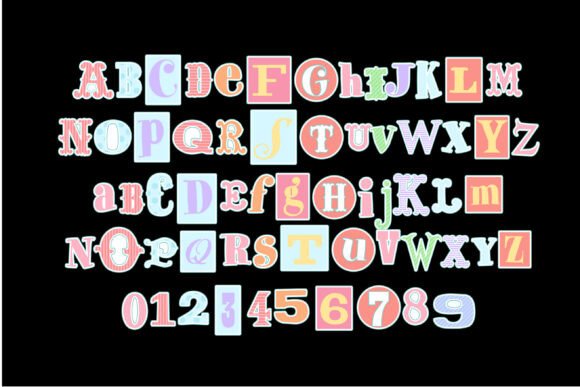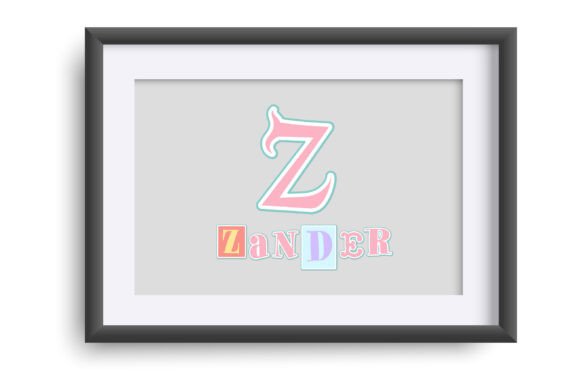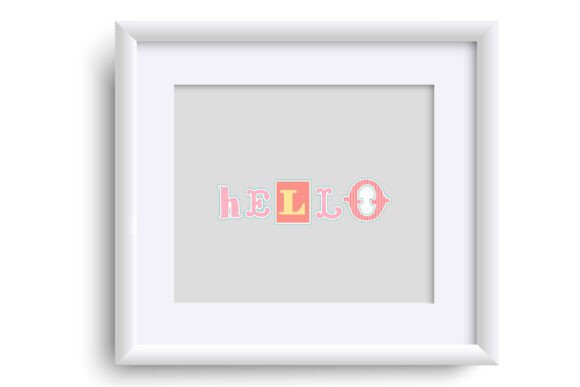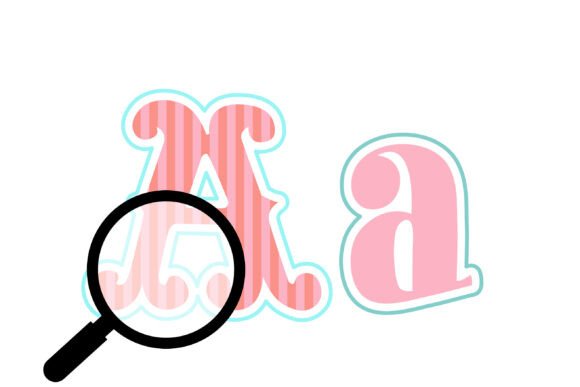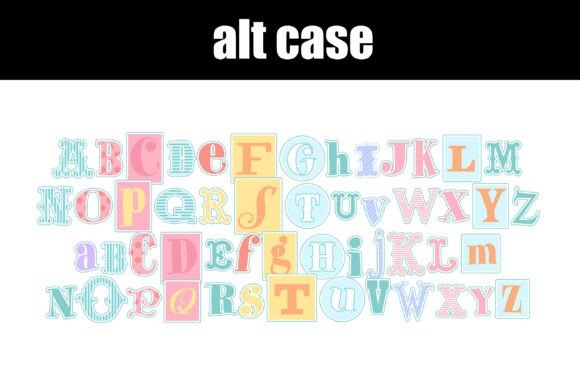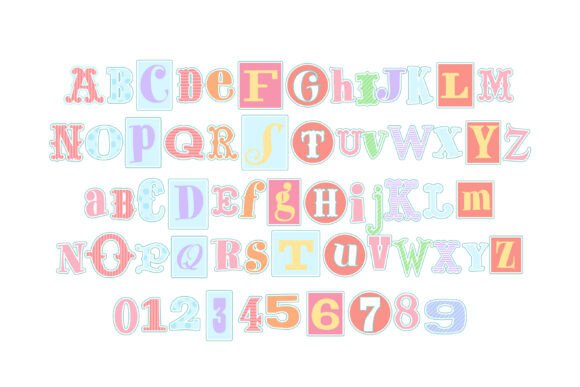
Unlocking the Magic of Kidnap Spring Font
Have you ever found yourself staring at a blank canvas, unsure of how to bring your creative project to life? It’s a familiar feeling, but one that’s about to become a thing of the past with the introduction of the enchanting Kidnap Spring Font.
This stunning full-color font is a treasure trove of design inspiration, featuring a unique blend of font styles in soft, pastel hues. With its alt case offering additional colors for each letter, you’ll have endless possibilities to experiment with. And with the option to access a bunny and chick by typing special glyphs, you’ll be able to add a personal touch to your designs. Whether you’re working on a free download or a high-quality commercial project, Kidnap Spring Font is the perfect resource to elevate your creative work.
Key Features of Kidnap Spring Font
- Perfect for designers looking for a unique and eye-catching font
Honest Review: Kidnap Spring Font
As a designer, I’m always on the lookout for high-quality design resources to elevate my creative projects. Recently, I came across the Kidnap Spring Font, and I must say, it’s been a game-changer for my latest design endeavors.
Here’s what works well: ✨ The Kidnap Spring Font offers a wide range of stylish and modern characters that are perfect for creating visually appealing typography. The font is available for free download, making it an excellent addition to any design project. Additionally, the transparent background allows for seamless integration with any background design, giving me more creative control.
- Wide range of stylish and modern characters
However, I do have to mention a few limitations: ⚠️ The font could benefit from more character combinations, especially for languages with complex scripts. Additionally, the font’s legibility could be improved for smaller font sizes.
Overall, I’m thoroughly impressed with the Kidnap Spring Font. It’s a high-quality design resource that has taken my creative projects to the next level. If you’re looking for a stylish and versatile font, I highly recommend giving it a try.
The Kidnap Spring Font is a high-quality design resource that offers a unique and creative touch to your projects. With its transparent background, it’s perfect for use in various design applications.
Tips and Best Practices
For the best results, use the Kidnap Spring Font in conjunction with high-quality images and graphics. Experiment with different font sizes and colors to create a visually appealing design.
The Kidnap Spring Font is perfect for use in various creative projects, including: